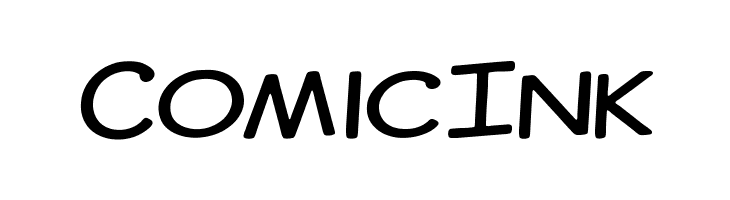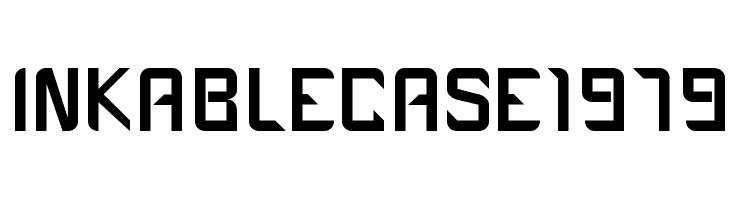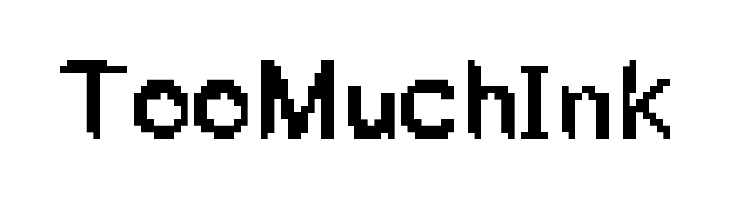
( Chase Babb )
A bold, impactful typeface with a strong, modern presence.
( Dariusz Nowacki - www.dariusznowacki.com )
A bold, geometric font with a futuristic and angular design.
( Debut Studio - Ari Fadli - creativemarket.com/debutstudio )
A bold, cursive font with fluid, interconnected strokes.
( Frances Ludlam )
A bold, hand-drawn style font with a rough texture and rounded edges.
( K Guillory )
A bold, pixelated font with a retro digital style.
( Lettersiro Studio - Muhammad Sirojuddin - creativemarket.com/Lettersiro )
A bold, hand-drawn font with a playful and energetic style.
( Linafis Studio - Ahmad Fashihullisan )
A playful, hand-drawn font with irregular, wavy lines and a casual style.
( Michael Hassler - hassified.blogspot.com/ )
A playful, informal font with rounded, slightly irregular characters and a handwritten style.
( Måns Grebäck - www.mansgreback.com )
A flowing, cursive font with a handwritten, elegant style.
( OldStudioo - Muhammad Ilham - www.fontdraft.com )
A dynamic and fluid handwritten font with expressive letterforms.